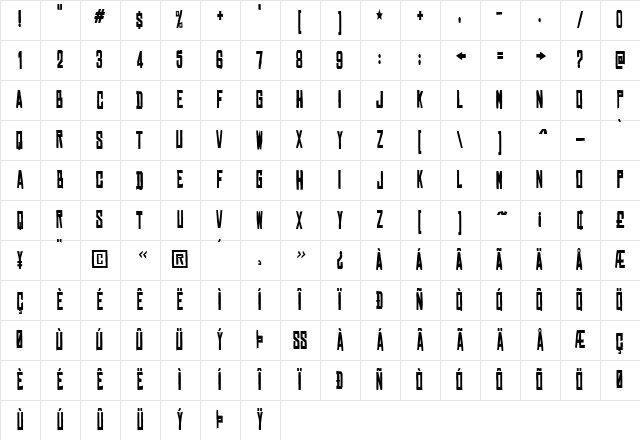
Complete Chinese Rocks Cnd Bold glyph index. Displaying only characters natively supported by Chinese Rocks Cnd Bold font.
Chinese Rocks Cnd is a composed and adaptable typeface that performs quietly and consistently across a wide range of design contexts. Its bold stroke weight gives it real presence on the page.